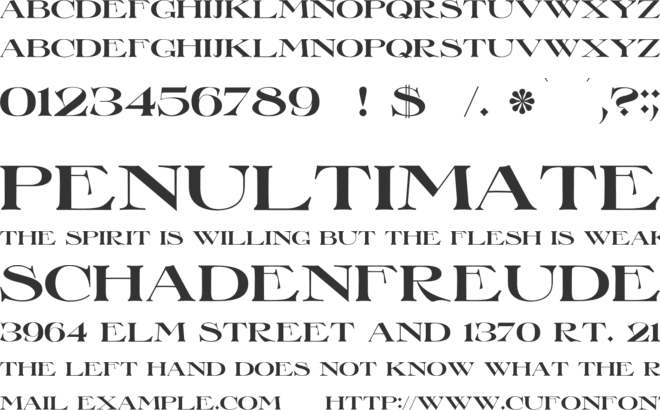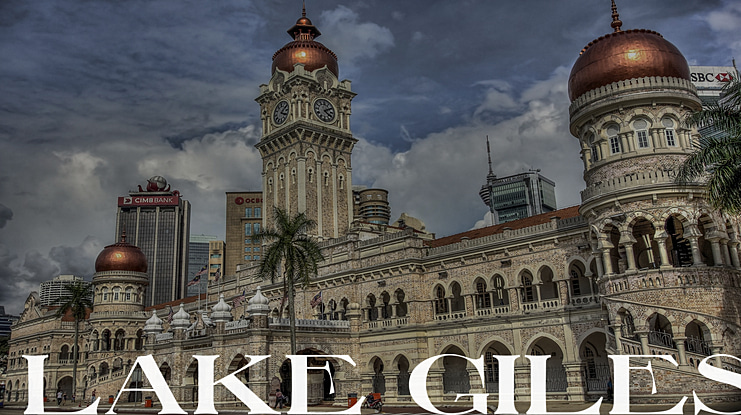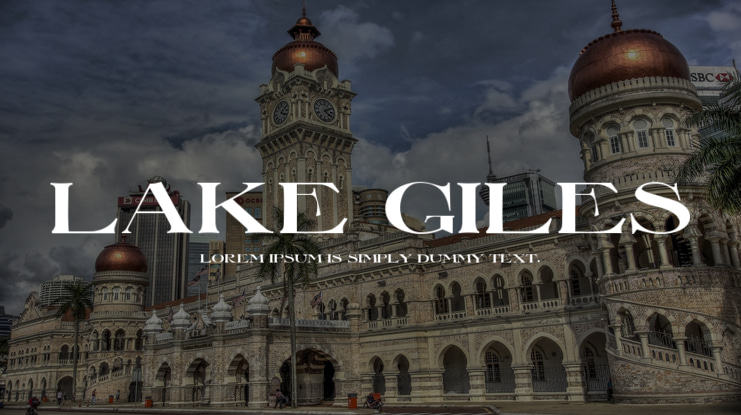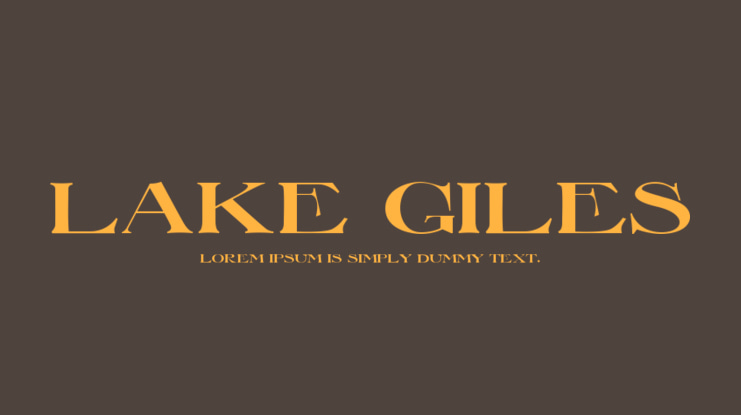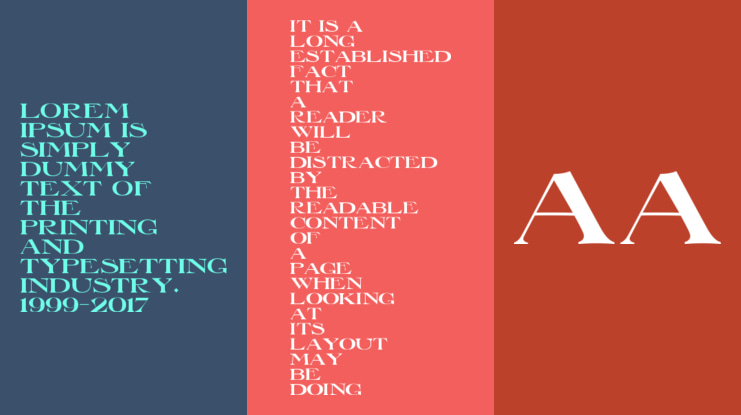
Lake Giles Font
Lake Giles is a display font based on hand lettering from an old children's choir book. If you'd like to demo the ligatures (Fontspace doesn't allow this) please visit http://fonts.plph.co/#lakegiles